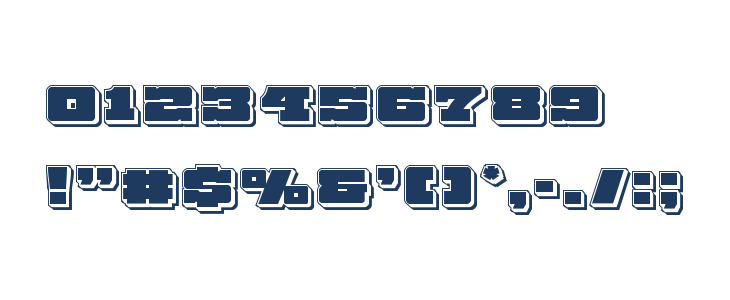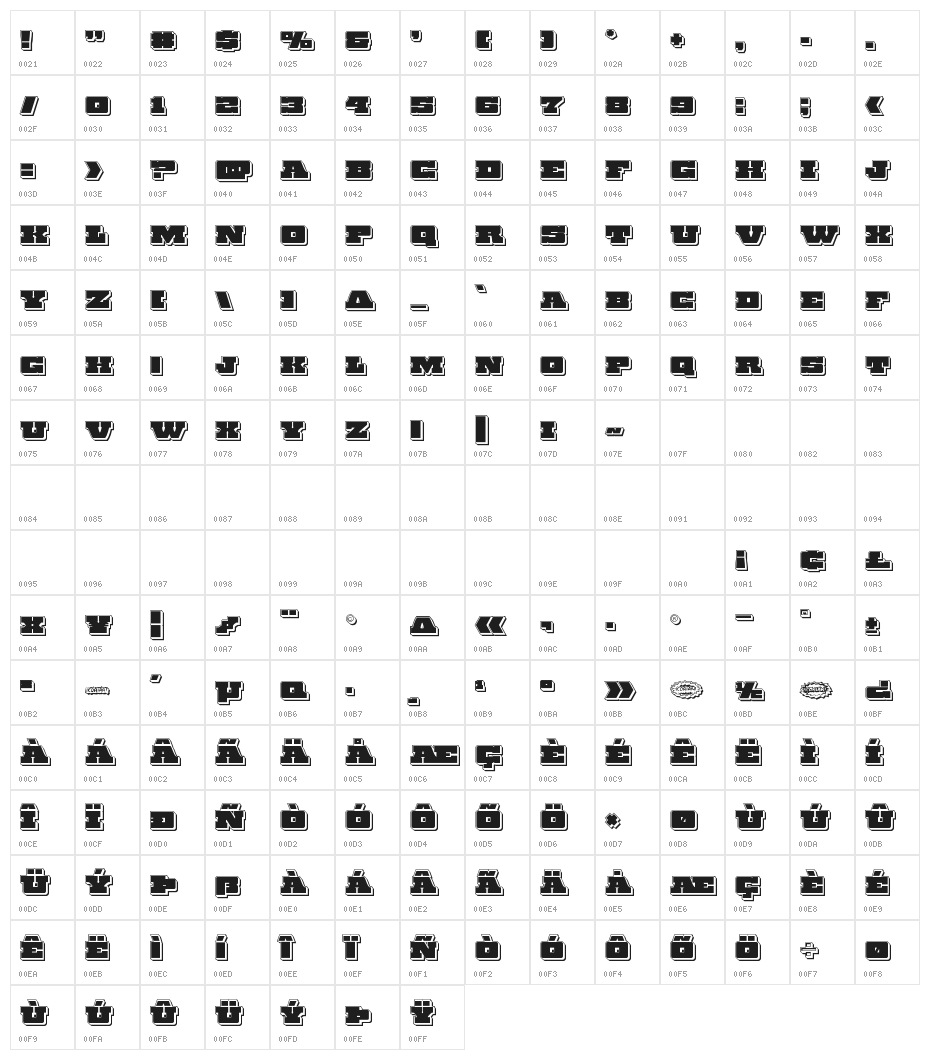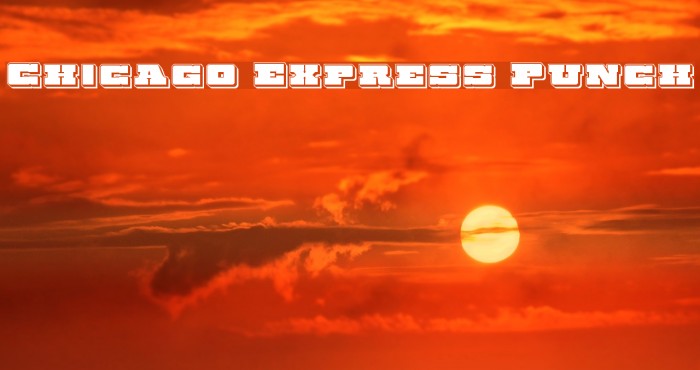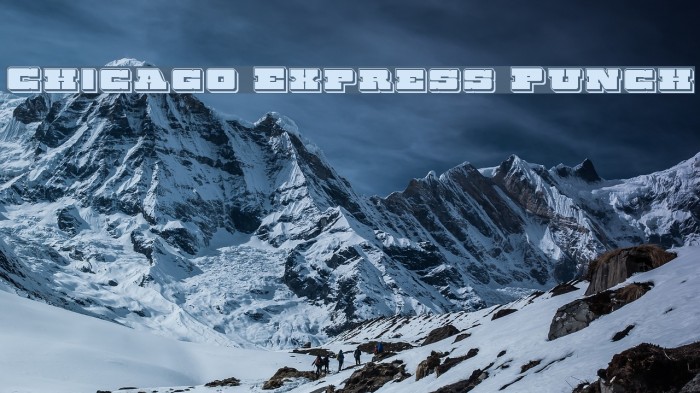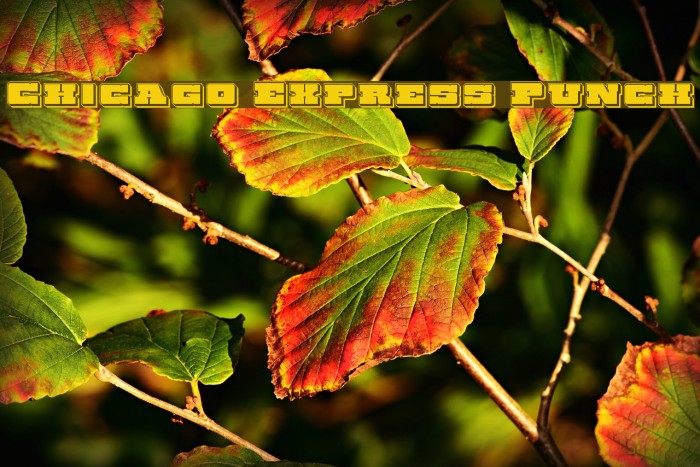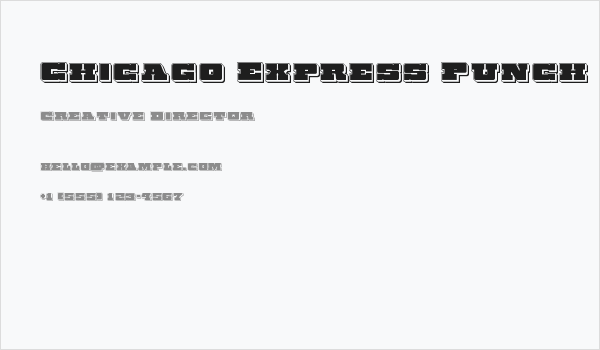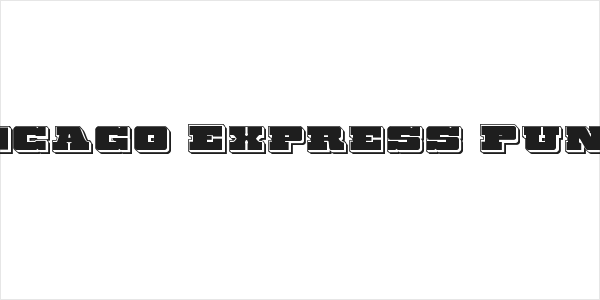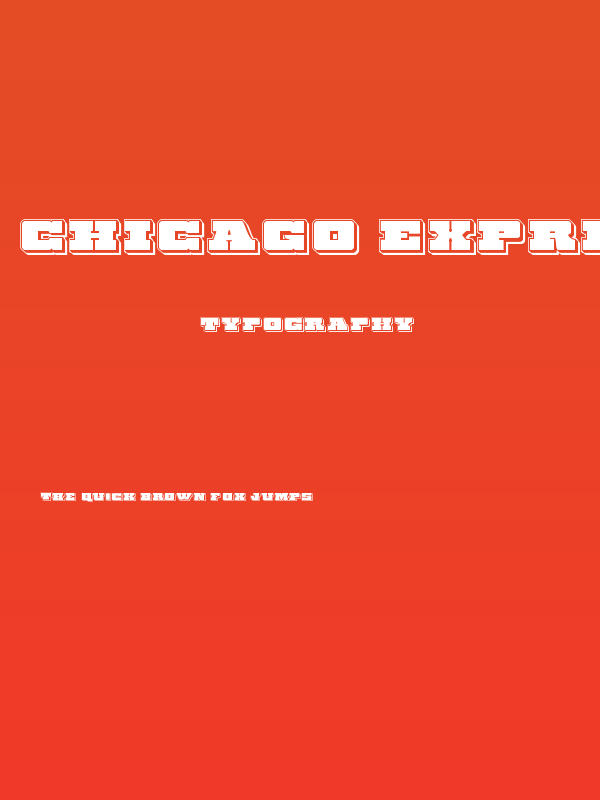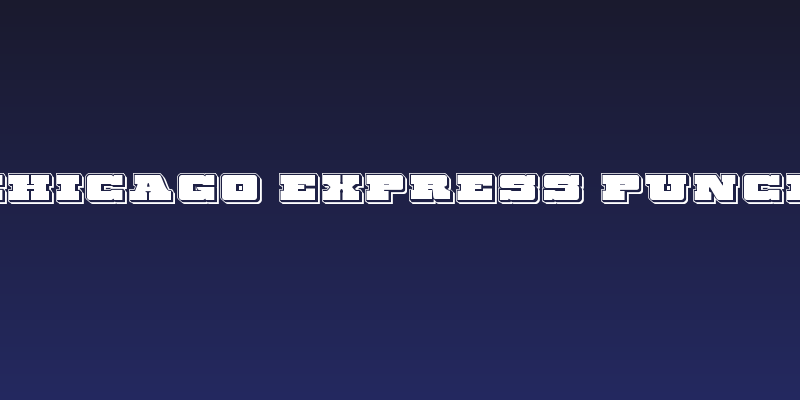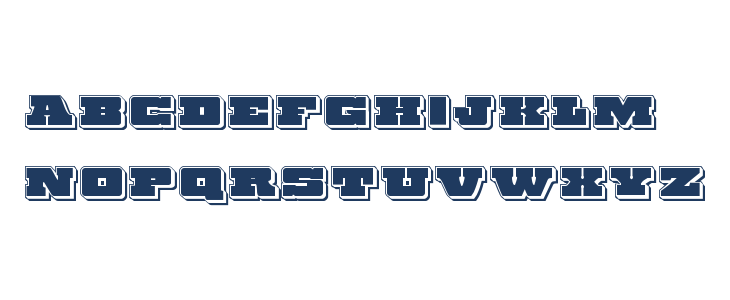
Chicago Express Punch Font
Chicago Express Punch Description
This font features a bold, impactful style with a strong presence, characterized by its thick, blocky letters and a distinctive outline that adds depth and emphasis. The uppercase letters are uniform in height, creating a cohesive and structured appearance. The numbers and special characters maintain the same boldness, ensuring consistency across all elements. The font's design is reminiscent of vintage sports or collegiate themes, making it ideal for projects that require a strong, authoritative look. Its boldness and clarity make it suitable for attention-grabbing headlines or logos.
| Overall Style | Vintage |
| Proposed Projects | Ideal for sports team logos, event posters, or any project needing a bold, vintage look. |